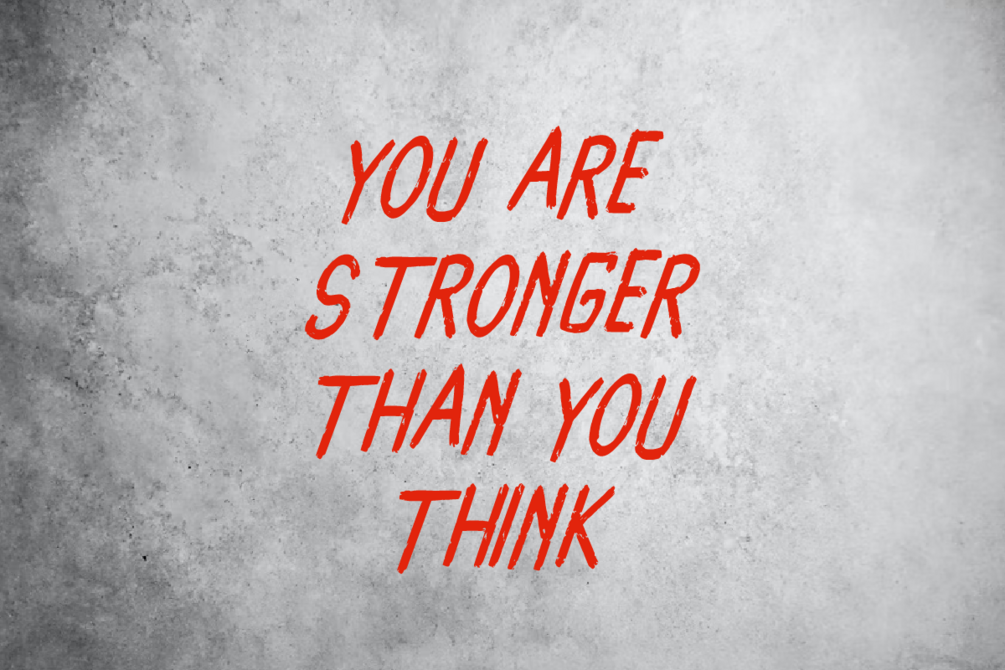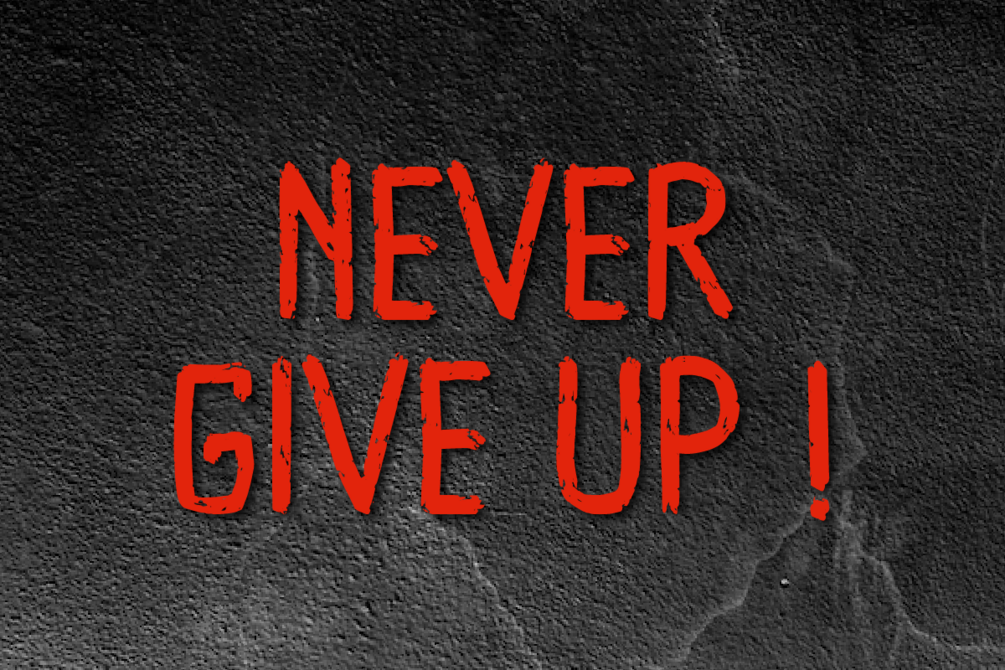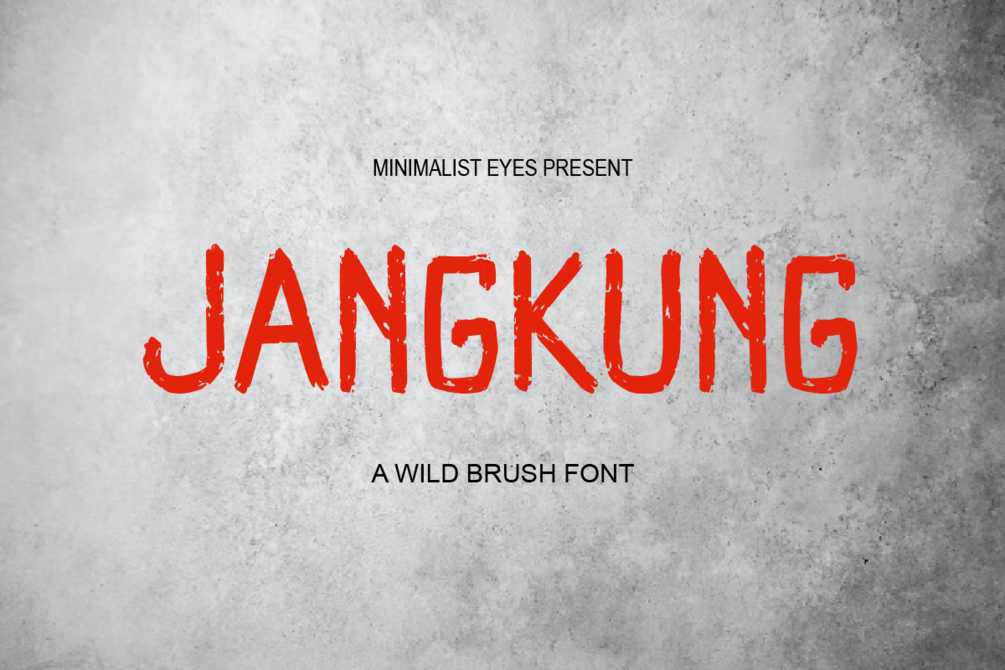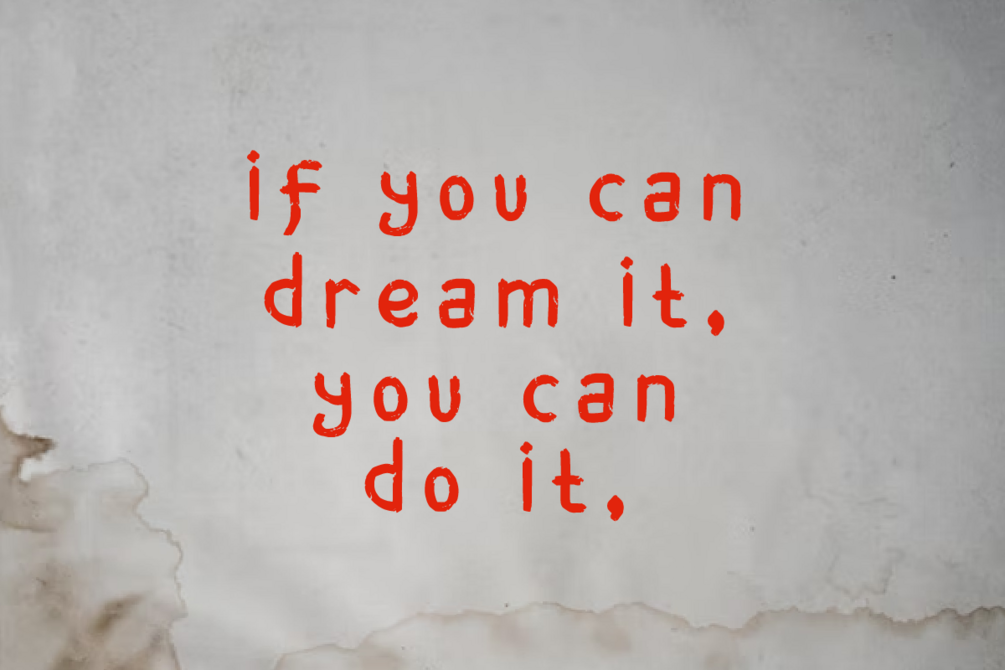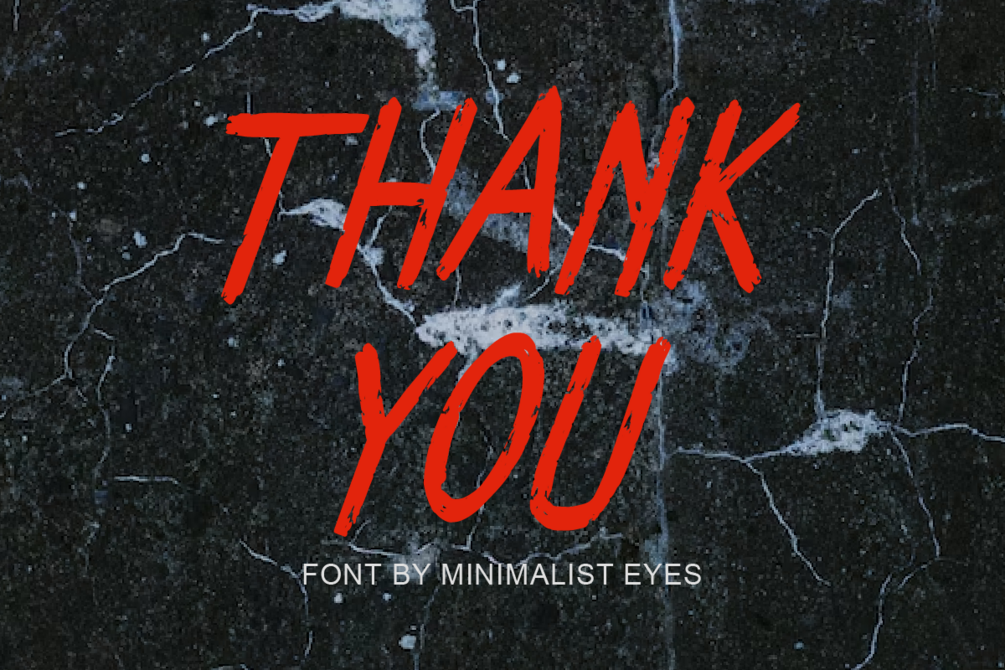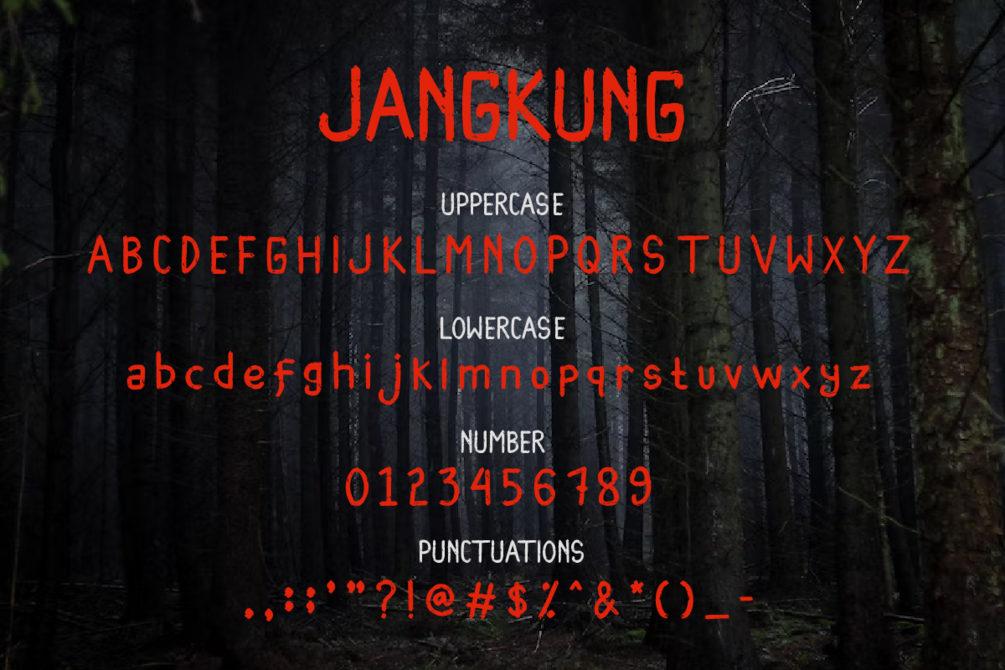
Jangkung - A Wild Brush Font
Jangkung is a lovely and timeless handwritten font. It is the best choice for creating eye catching logos, branding and quotes. Every letter has a unique and beautiful touch, which will make your design come alive!